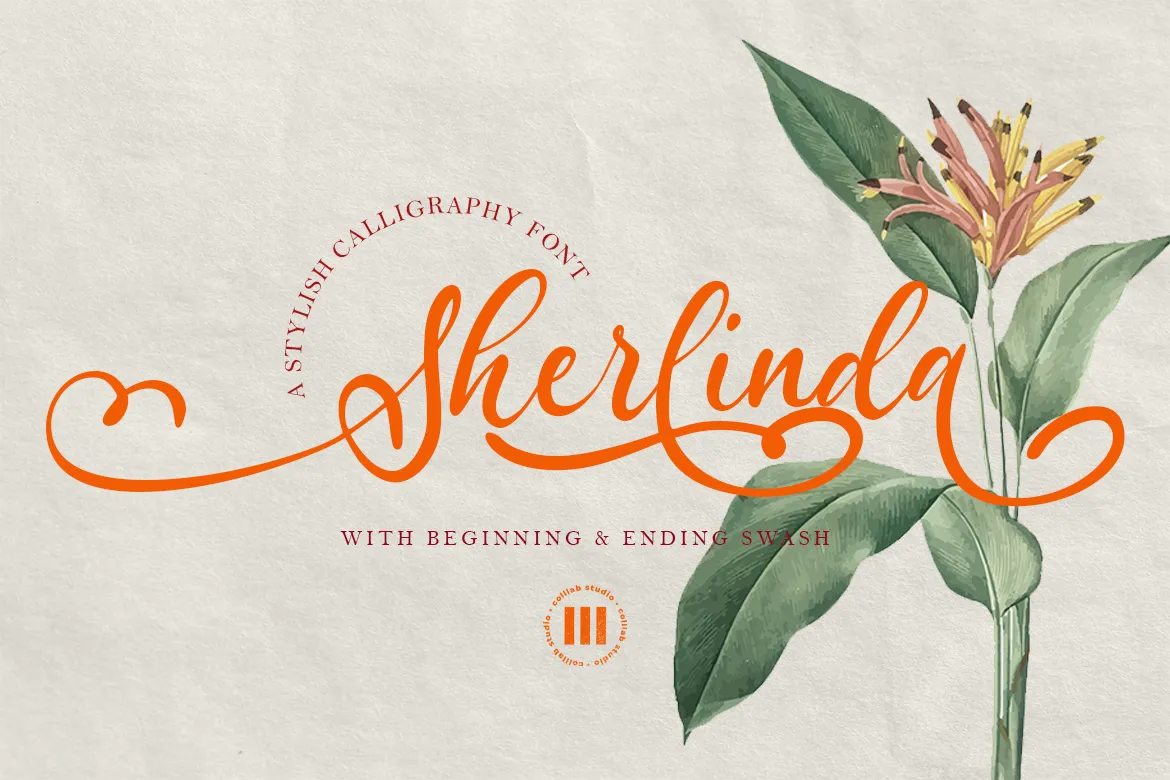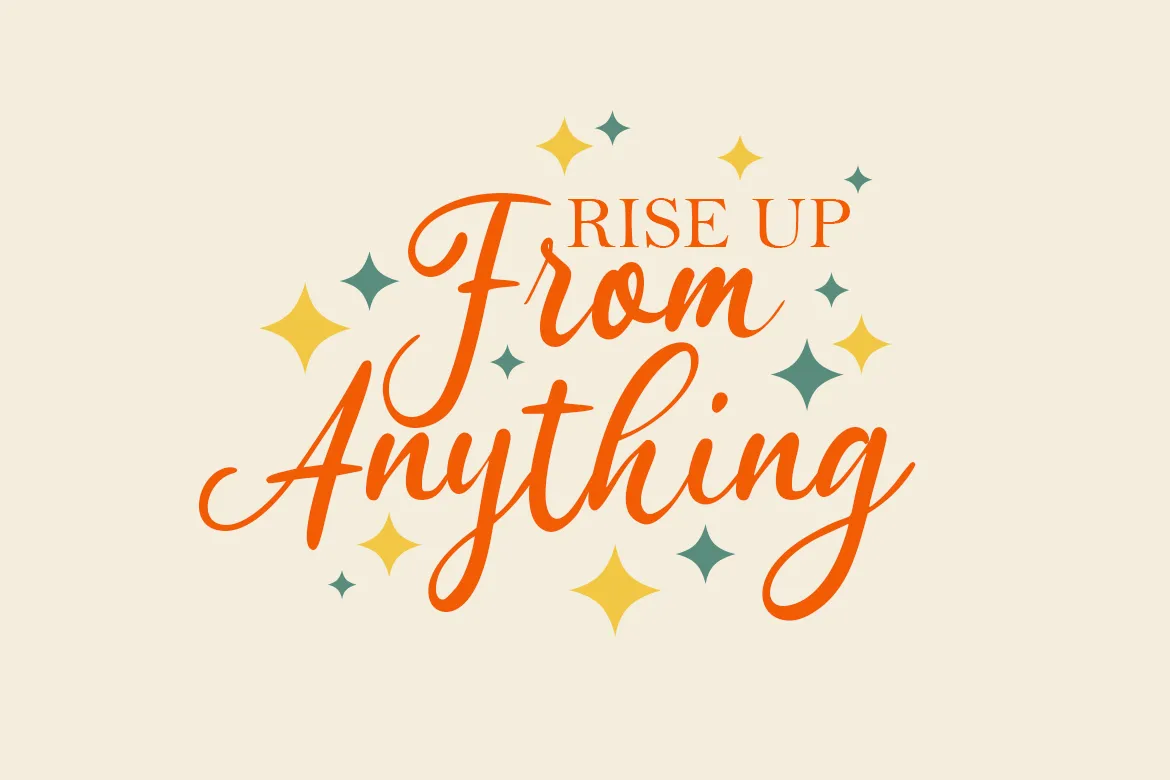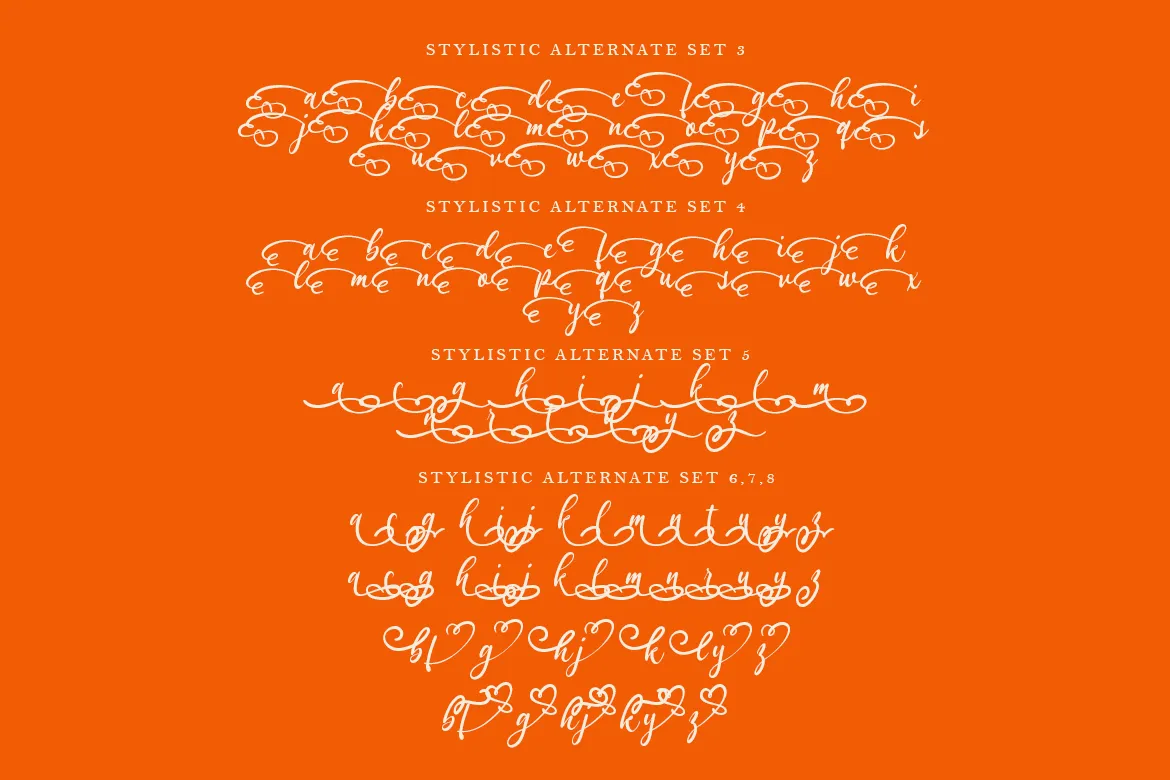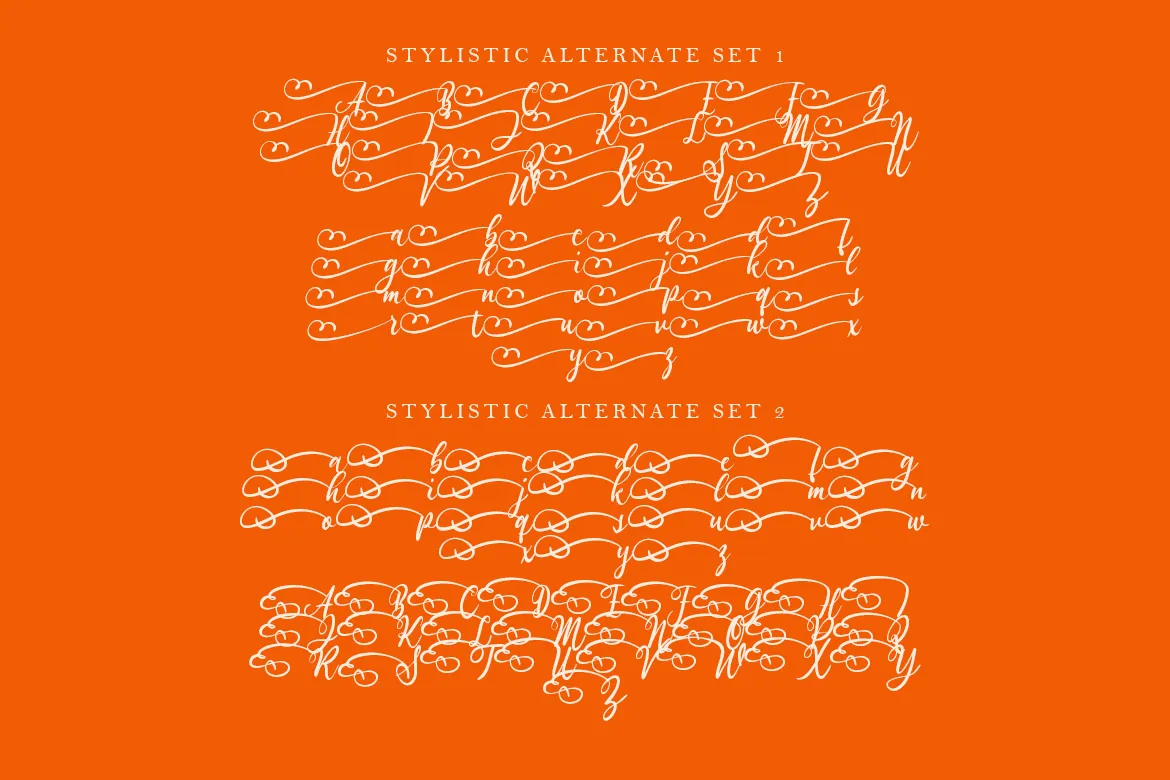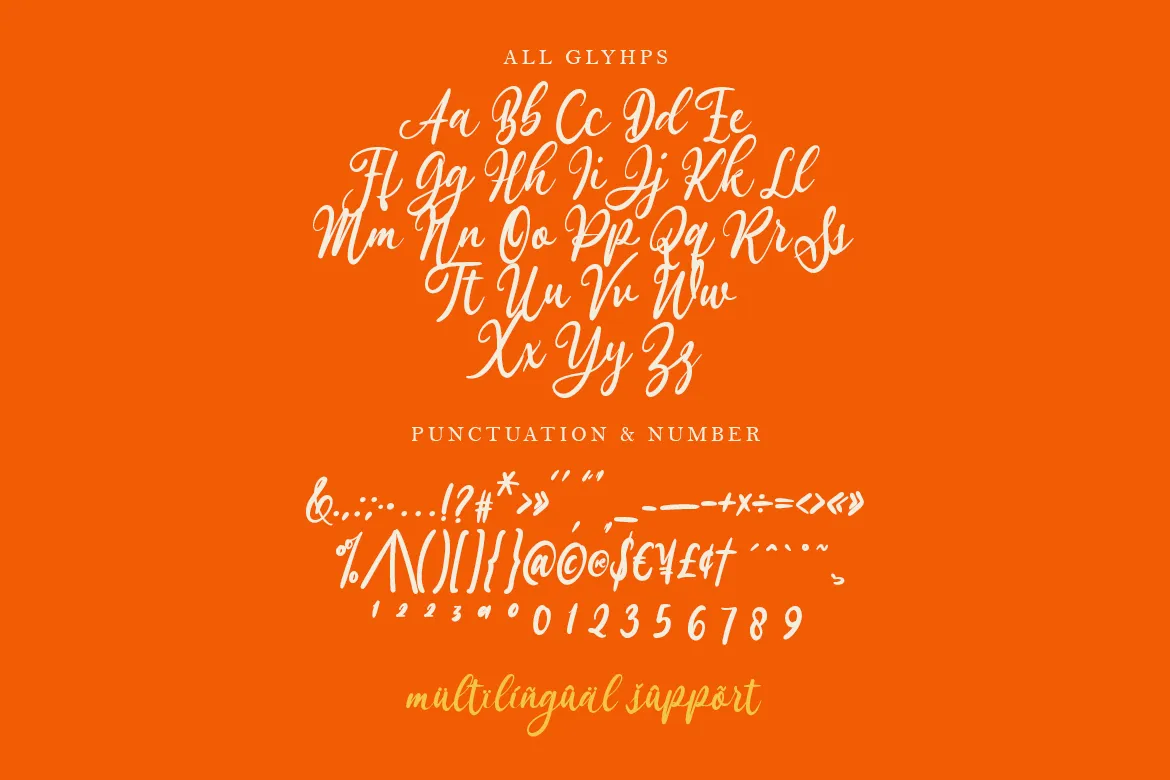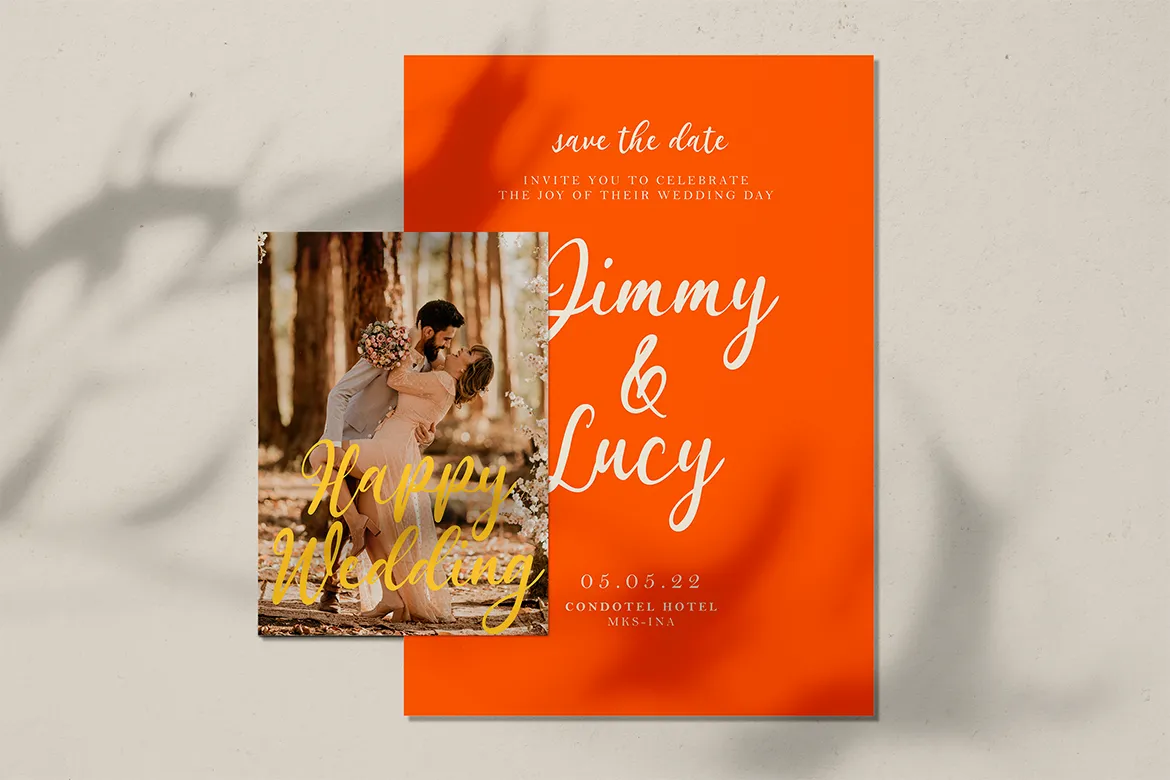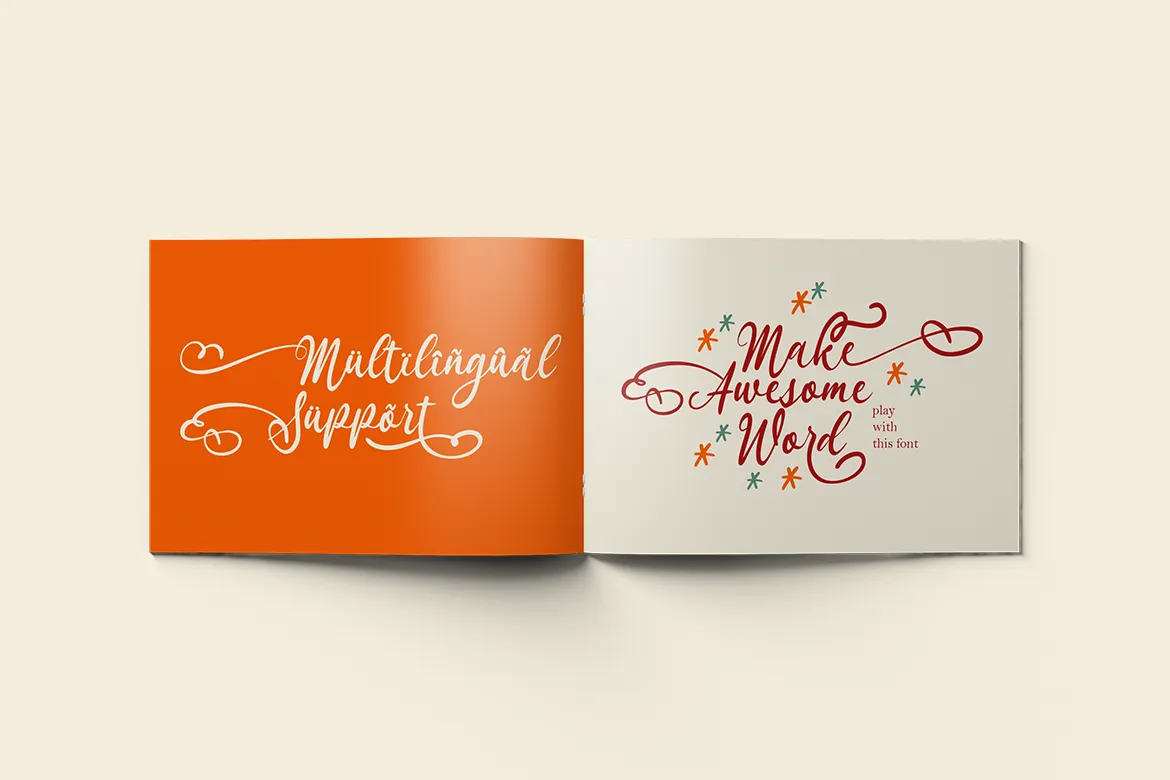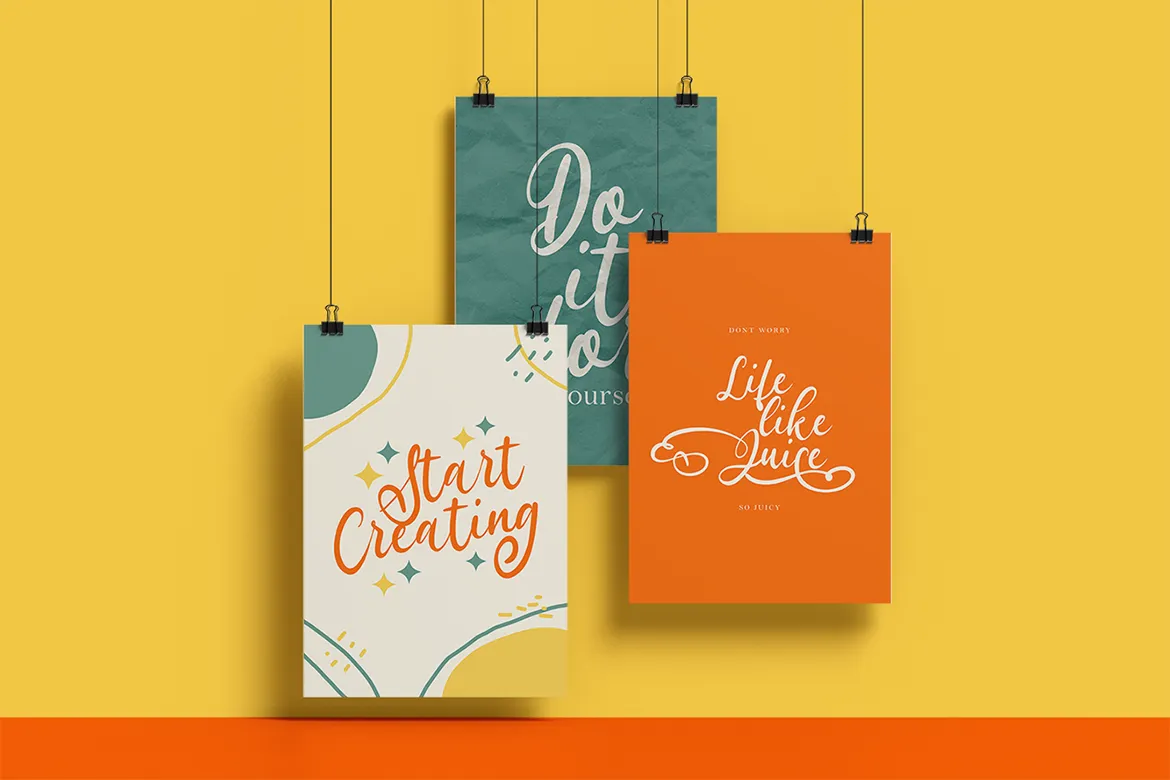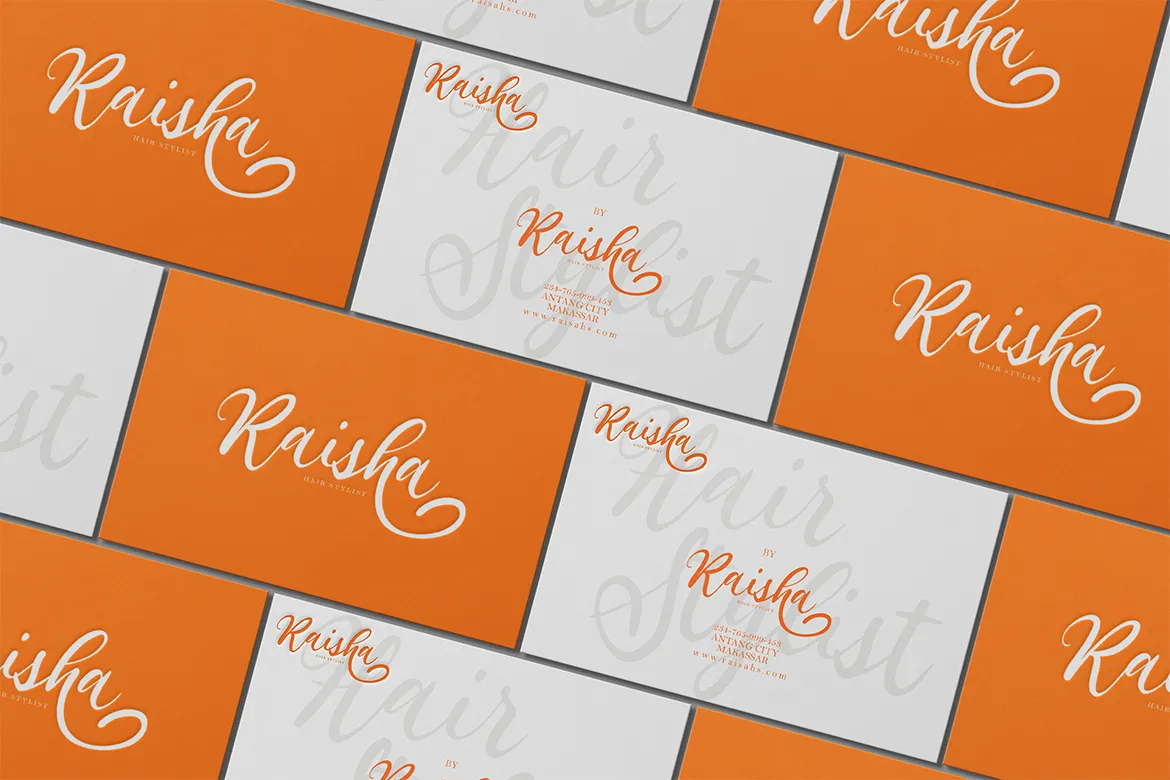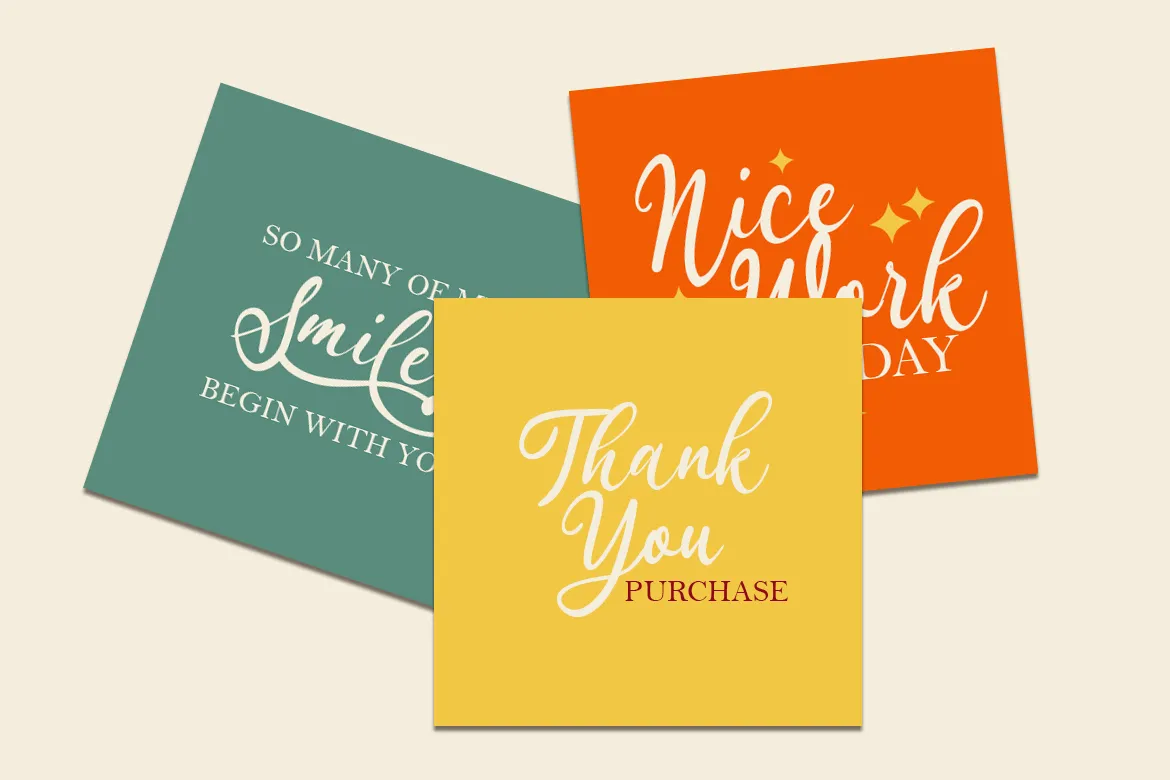
Introducing Sherlinda, a stylish script font with a classic tone. If your next project requires a playful touch, you’ll love this collection of special characters and features.
With Sherlinda, you can mimic the elegant appearance of hand-drawn type without any of the cost or time associated with hiring a professional calligrapher. No more waiting to get a quote only to find out that handwriting services are way out of budget! Just include this font in your project and get to work.
Sherlinda comes with over 400 glyphs, including multilingual support for Western European languages, ligatures, and numeral sets. That means that if you’re looking for an authentic handwritten feel to your next project—whether it’s a wedding invitation, book cover, or whatever else you’re dreaming up—you don’t have to look any further than Sherlinda.